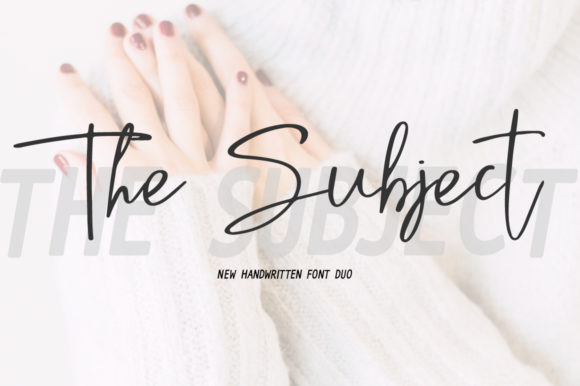
Prepare to be mesmerized by The Subject Duo Font, an enchanting harmony of signature and sans fonts that will elevate your designs to unparalleled heights of allure!
Immerse yourself in the graceful curves and delicate strokes of the signature font, a masterpiece crafted to evoke emotions and captivate hearts. This font is the epitome of elegance, effortlessly adding a touch of sophistication to any project.
Complementing this beauty is the sans font, a bold and confident companion that provides the perfect balance and structure. Its clean lines and modern aesthetic lend a touch of contemporary flair, making it ideal for creating impactful headlines, striking logos, and eye-catching branding.
Together, The Subject Duo Font forms an unstoppable force, empowering you to express yourself with limitless creativity. Whether you're designing wedding invitations, social media posts, or captivating marketing materials, this font duo will transform your words into works of art.
Indulge in the captivating charm of The Subject Duo Font and let your imagination soar. Experience the power of fonts that not only convey messages but evoke emotions and create unforgettable impressions.